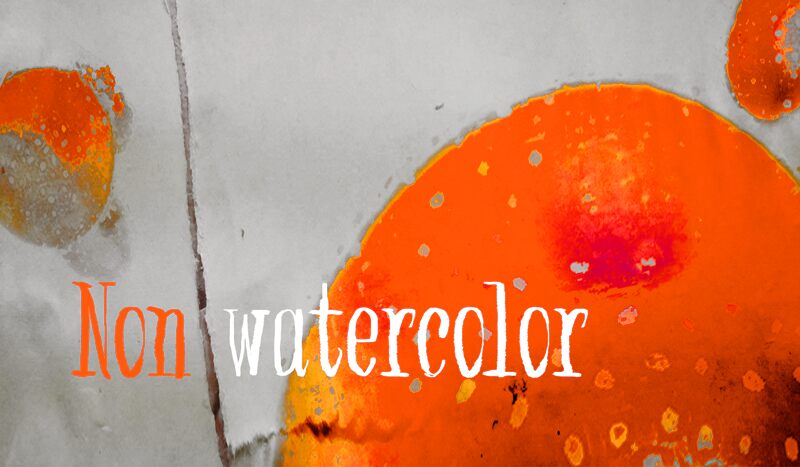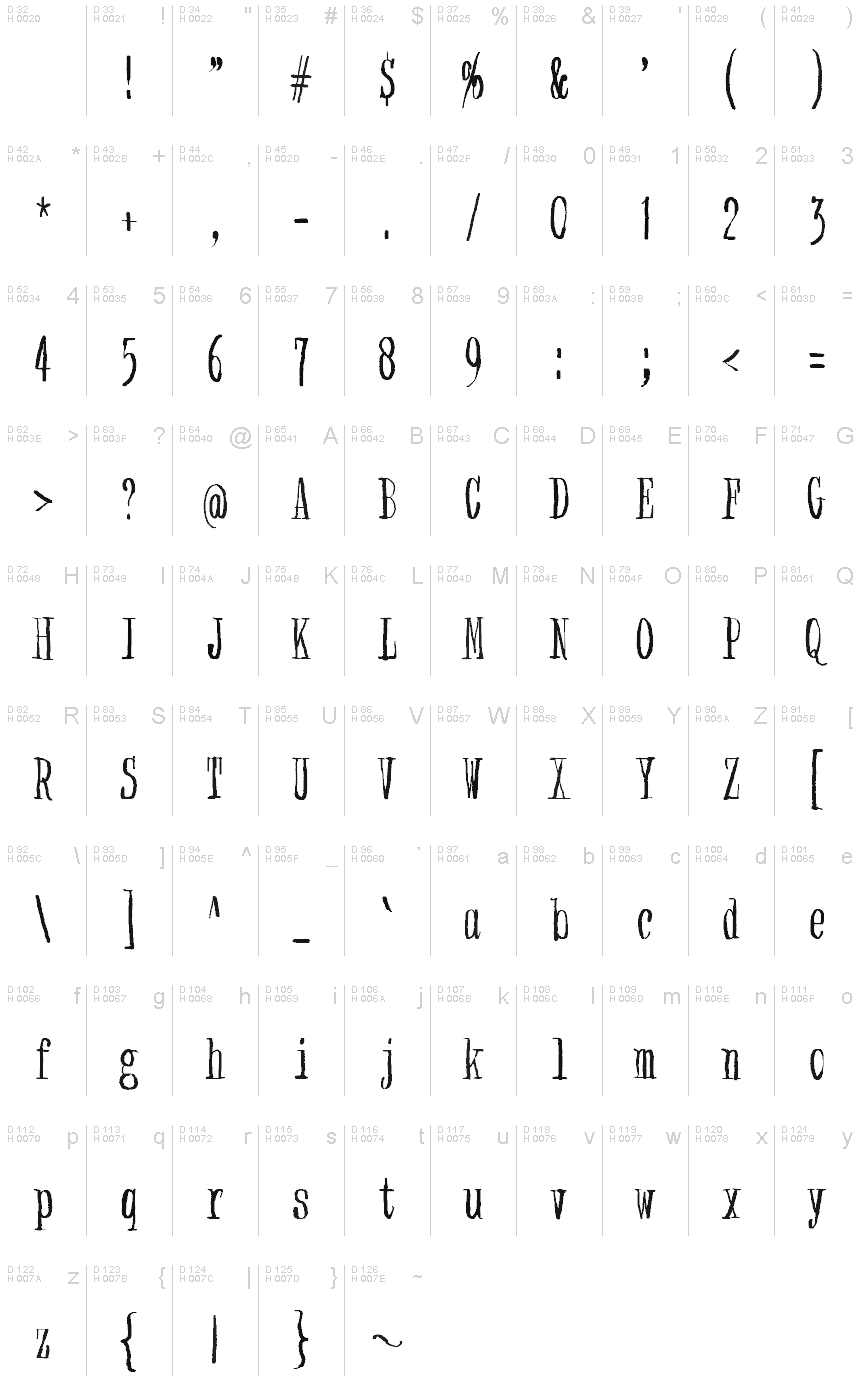
Non watercolor
Non Watercolor is a captivating display font that exudes a bold, yet whimsical charm. Crafted by designer junkohanhero, this condensed typeface boasts a striking aesthetic that combines the rugged appeal of a traditional watercolor brush with the precision of a modern digital design. The uneven, textured strokes and organic flourishes lend an artistic, handcrafted quality, making Non Watercolor a versatile choice for a wide range of design applications, from eye-catching headlines to impactful branding and packaging.
Its condensed width allows for compact compositions without compromising legibility, making it a practical solution for space-constrained layouts. Non Watercolor's unique character and expressive flair make it an excellent selection for projects seeking to convey a sense of creativity, individuality, and a touch of the unexpected.